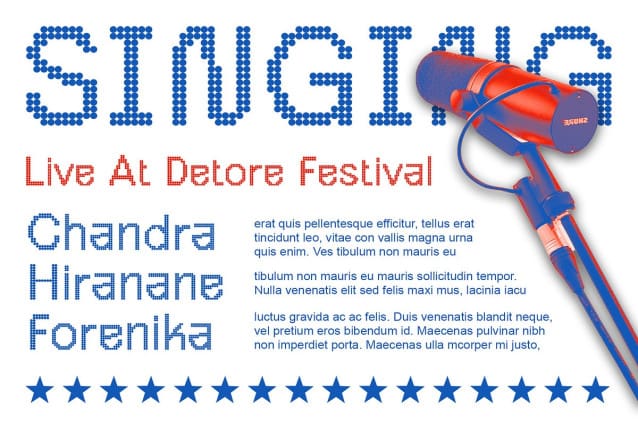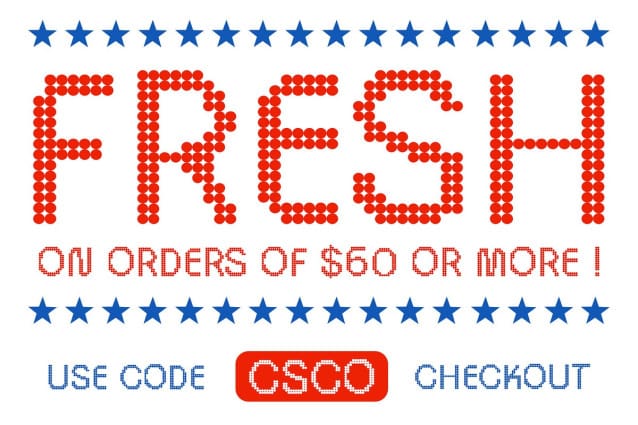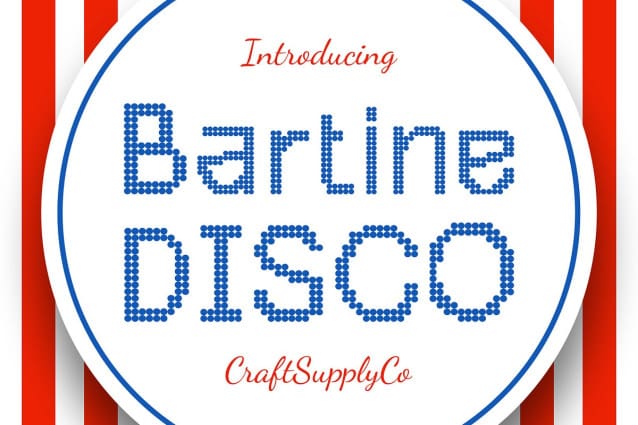
Bartine Disco Font
Bartine Disco Font is a dynamic display font that captures the essence of retro and disco vibes. Featuring a distinctive dot pattern, this font is perfect for making eye-catching displays that stand out and draw attention.
With its retro design and disco-inspired twist, this font brings a sense of nostalgia and fun to any project. The unique dot pattern gives the font an energetic and lively feel, ideal for posters, flyers, and other designs that need a bold and striking look.
Whether you’re creating a poster for a vintage-themed event or designing packaging for a funky product, Bartine Disco is sure to make a statement. Its vibrant design and distinctive dot pattern make it perfect for creating displays that pop and capture the audience’s attention.
Despite its bold and playful appearance, this font is versatile and easy to use. The font works well in both large and small sizes and can be used for a variety of applications, including headlines, logos, and more. With its retro and disco vibes, Bartine Disco adds a touch of groovy charm to any design.